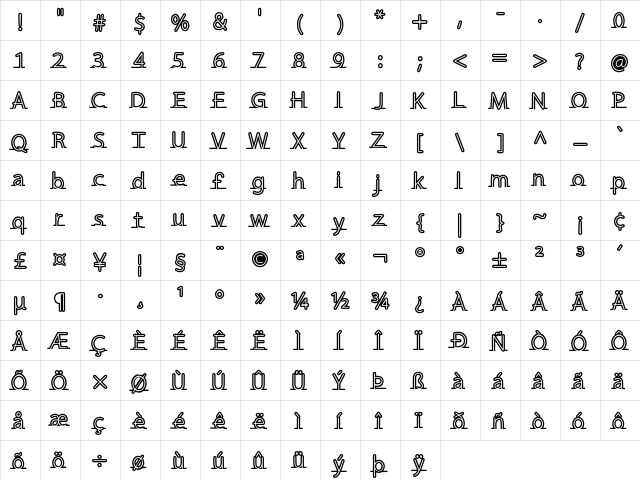
Fortrack Regular
| Foundry | Tommy Suhartomo |
| Designer | Tommy Suhartomo |
Design Context for Fortrack Typeface
Fortrack takes a measured approach to typography — its balanced proportions and neutral character make it a reliable workhorse for both digital and print work.